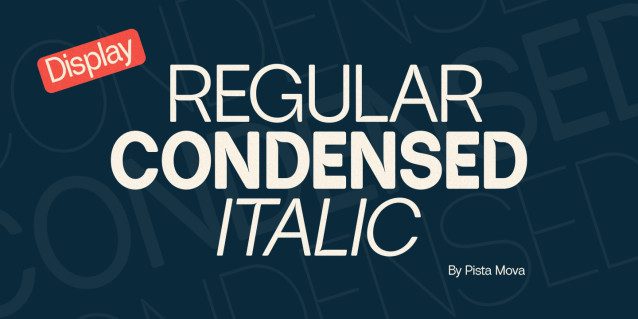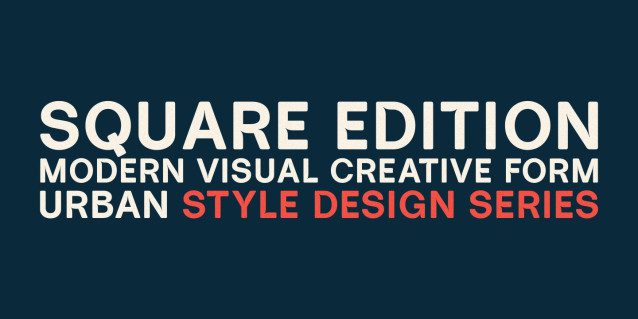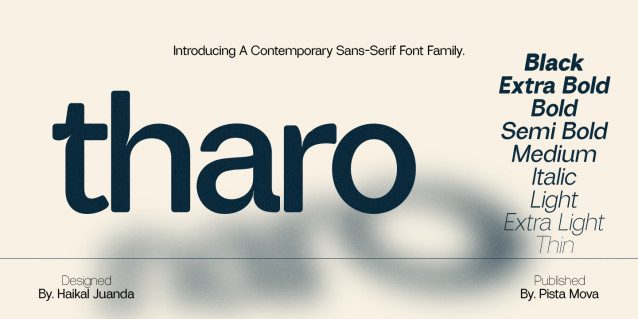
Tharo Font Family
Tharo Font Family, a meticulously crafted sans typeface that blends modern sophistication with geometric precision. Built on a clean monoline framework, Tharo brings balance, clarity, and harmony to every letterform. Its smooth curves and structured rhythm create a visual language that feels both refined and approachable — perfect for contemporary branding, editorial design, and digital interfaces alike.
Whether you’re designing a striking magazine headline, a confident brand identity, or an immersive website, Tharo’s versatility and signature beauty ensure your work stands out with confidence and style.
Tharo comes in a comprehensive set of 27 font files, consisting of 3 distinctive families — Regular, Italic, and Condensed — each designed to maintain visual consistency across different weights and styles. Each version has been carefully fine-tuned to deliver optimal readability, perfect alignment, and smooth scalability across print and digital formats.
Immerse yourself in the world of Tharo Sans, where every character is a balance of strength and refinement. From its precisely drawn proportions to its dynamic true italics, Tharo celebrates the enduring power of modern typography. Its italics bring a fluid sense of movement and individuality, allowing expressive layouts while maintaining effortless legibility.